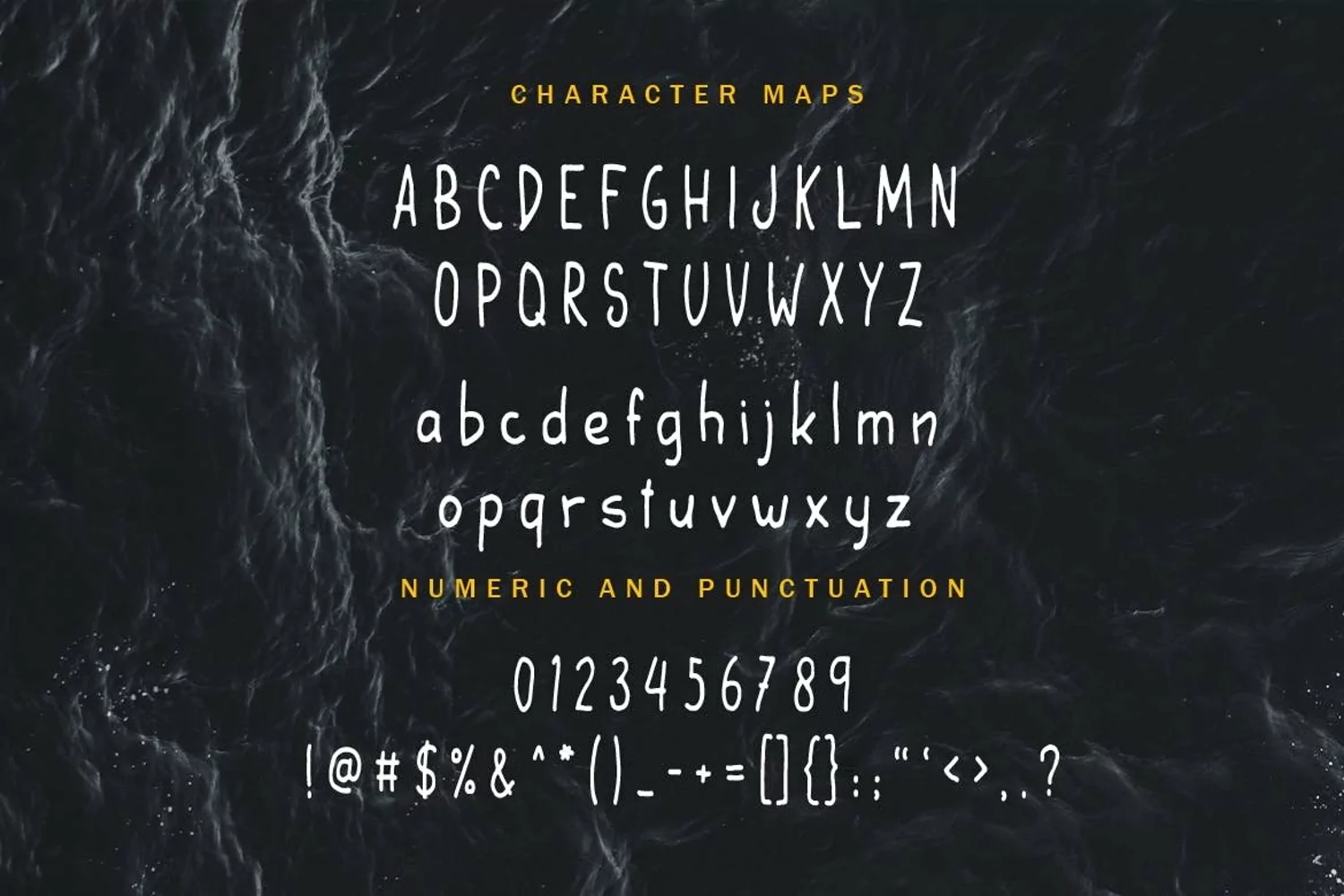
The Wanderer handwriting Font is light and simple, but still have a huge impact on your designs. The Wanderer will uplift the journey and adventurous vibe that you want to have on your design.